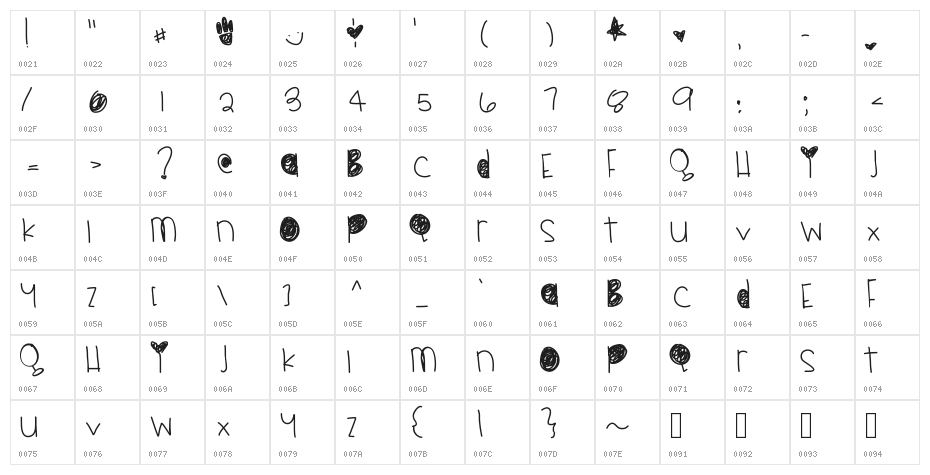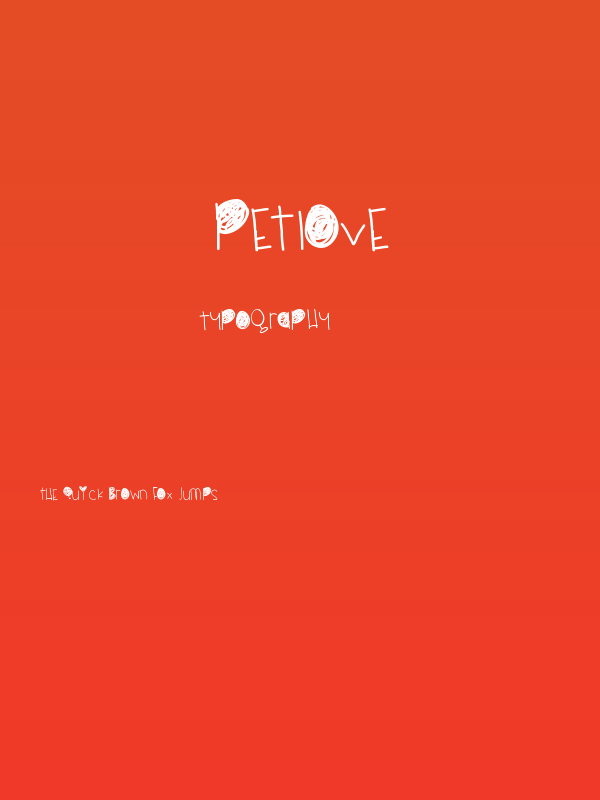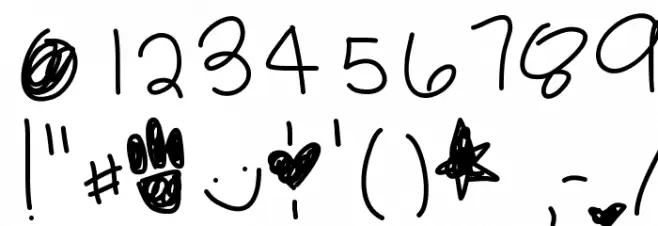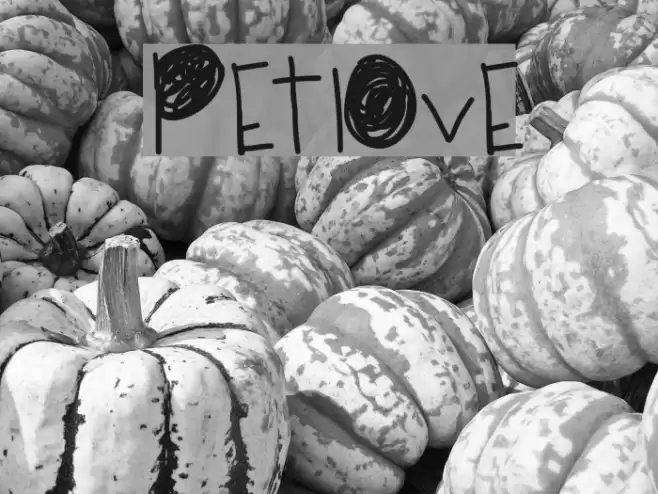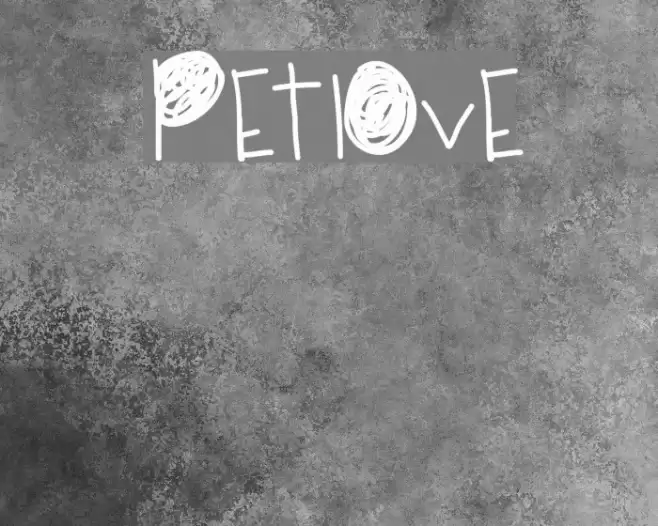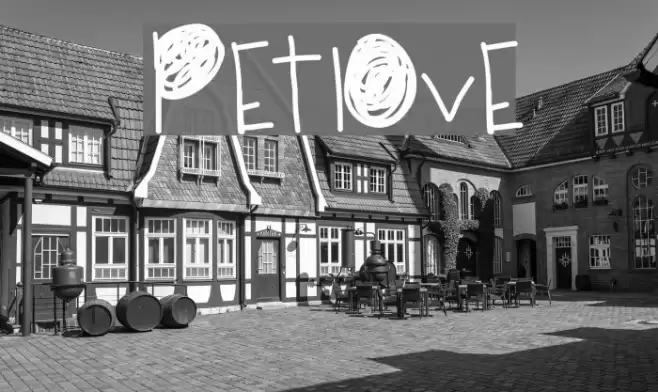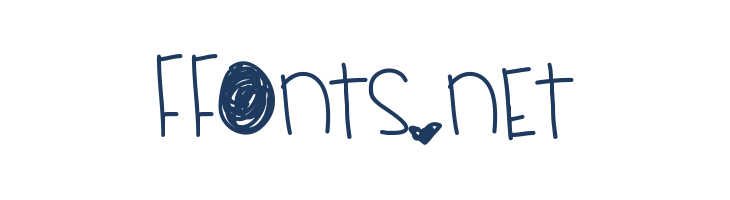
PetLove Font
PetLove Description
This playful and whimsical font features a handwritten style with a charming, casual feel. The letters are crafted with a mix of bold and thin strokes, giving it an informal and friendly appearance. The uppercase letters are slightly taller than the lowercase, maintaining a consistent flow throughout. Special characters like hearts and paw prints add a unique touch, making it perfect for projects that require a personal or fun vibe. The numbers are clear and easy to read, matching the playful style of the alphabet. Overall, this font exudes a sense of joy and creativity, ideal for designs that aim to be approachable and lively.
| Proposed Projects | Ideal for children's books, pet-related branding, playful invitations, and casual greeting cards. |